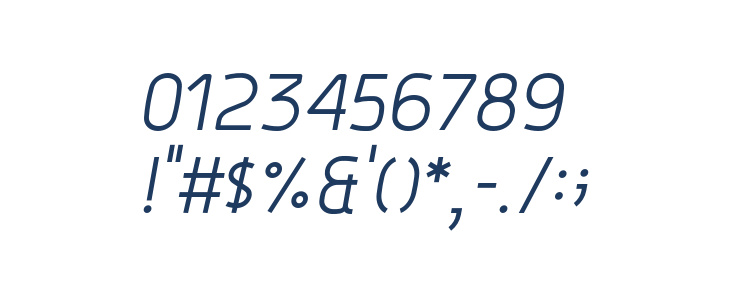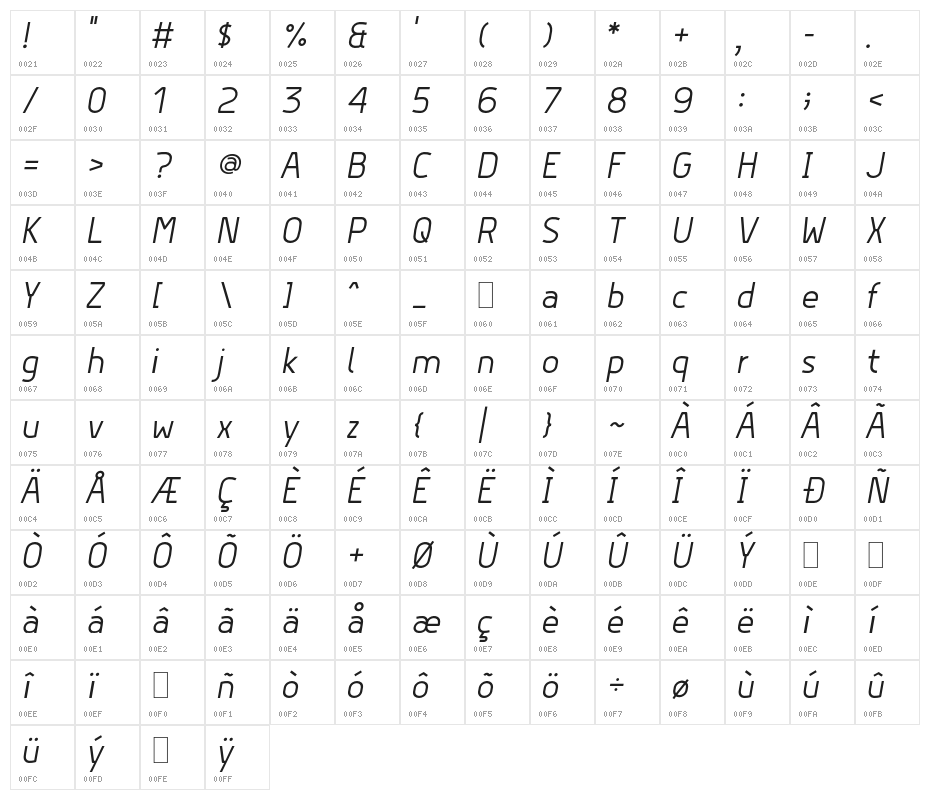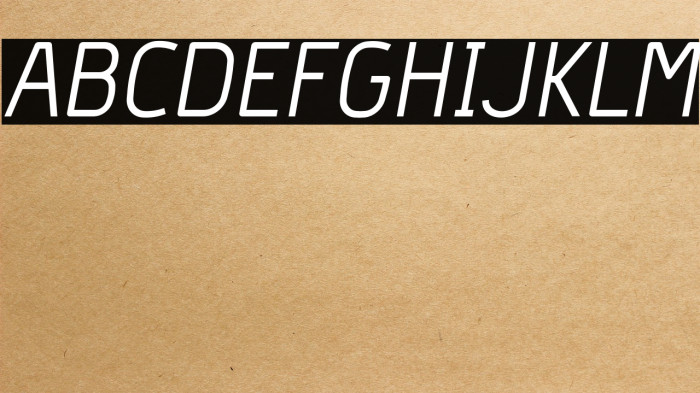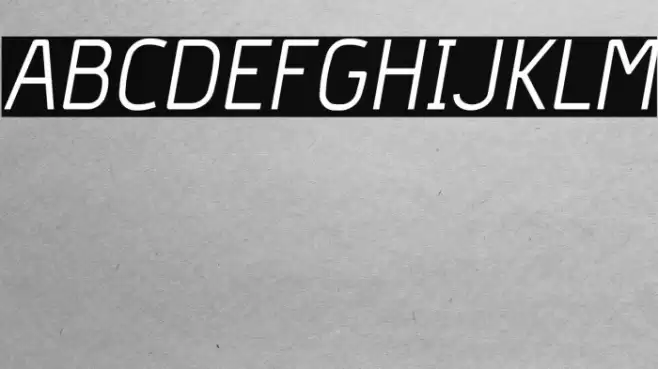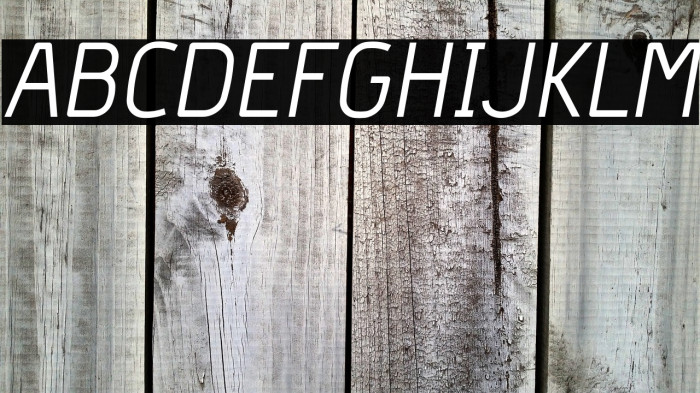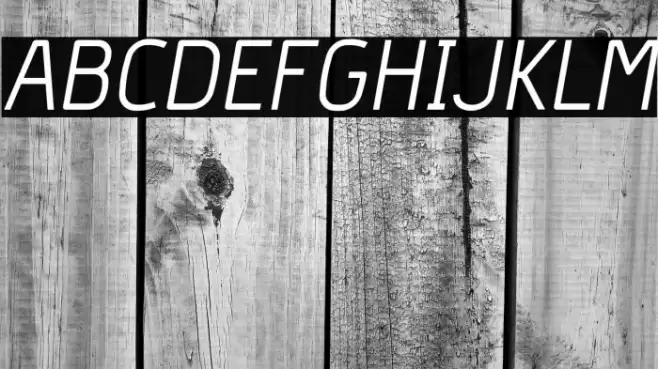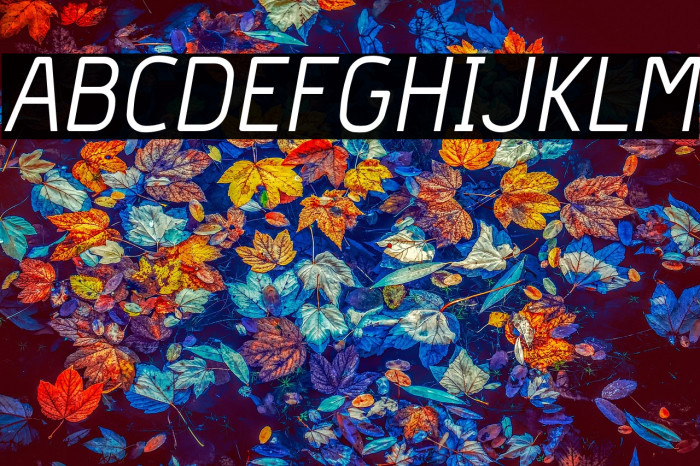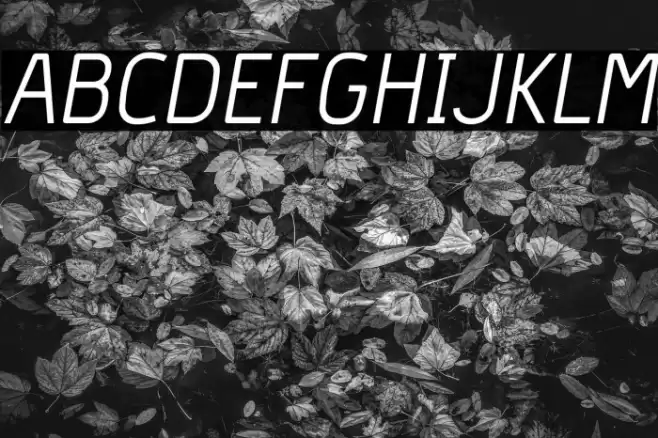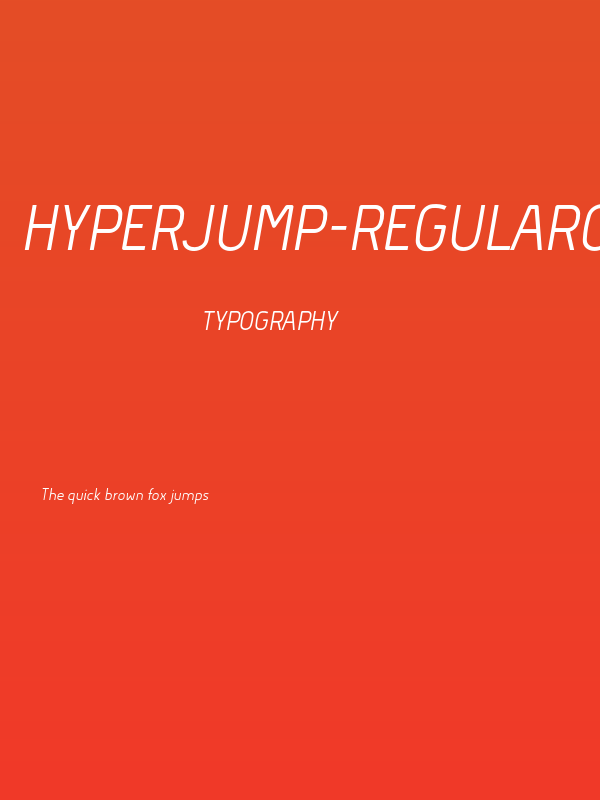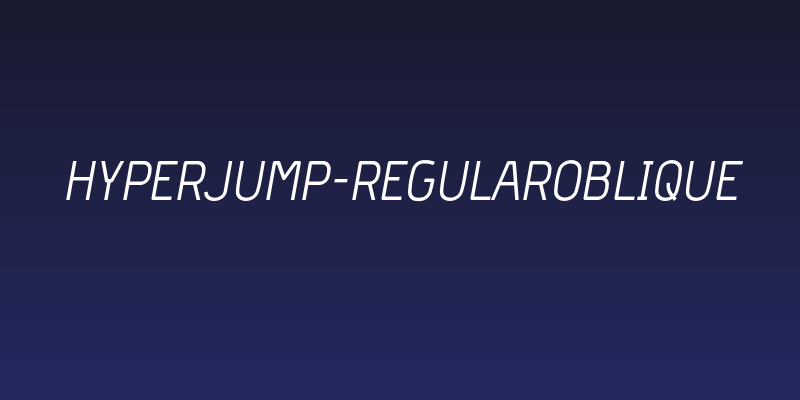
Hyperjump-RegularOblique Font
Hyperjump-RegularOblique Description
This font features a sleek, modern design with a slight oblique slant, giving it a dynamic and forward-moving appearance. The characters are clean and sans-serif, providing a minimalist aesthetic that is both functional and stylish. The uniform stroke width ensures readability, while the subtle slant adds a touch of elegance and motion. The numerals and special characters maintain the same design principles, ensuring consistency across all glyphs. This font is versatile, suitable for both digital and print media, and can be used to convey a sense of modernity and professionalism.
| Proposed Projects | Ideal for tech branding, modern websites, digital interfaces, and contemporary print media. |